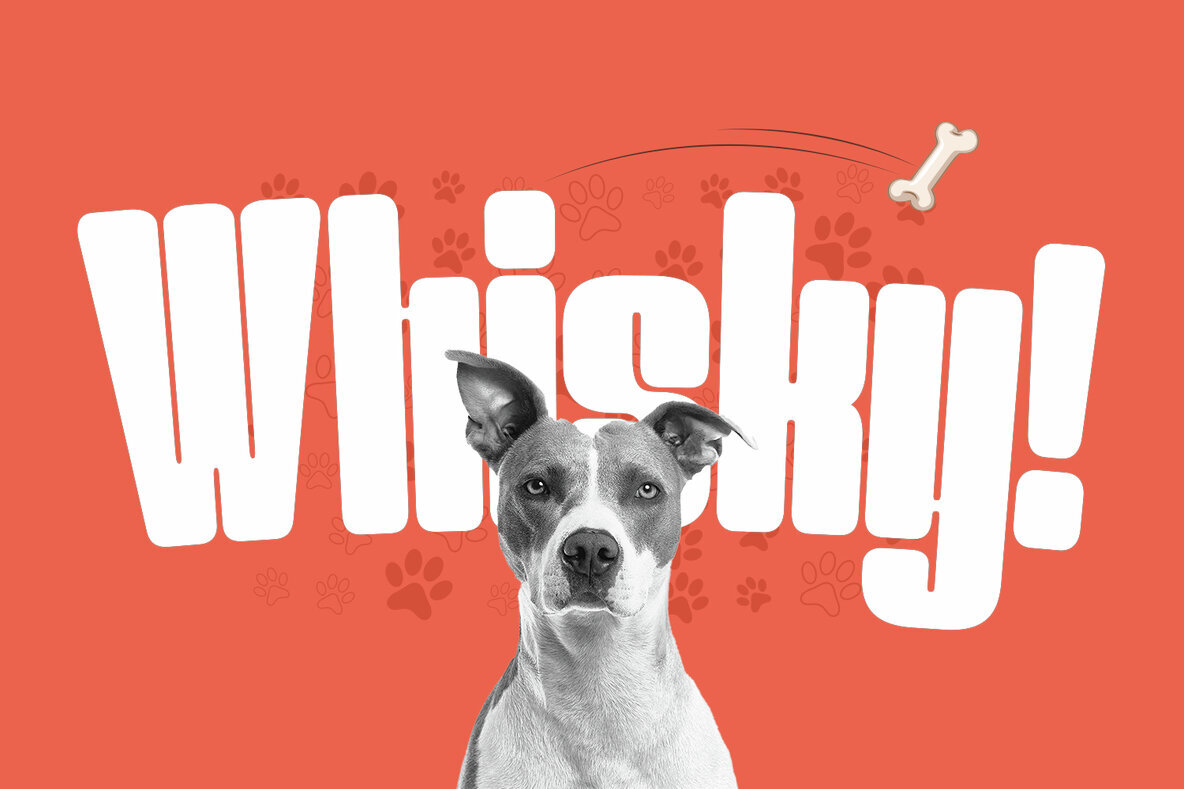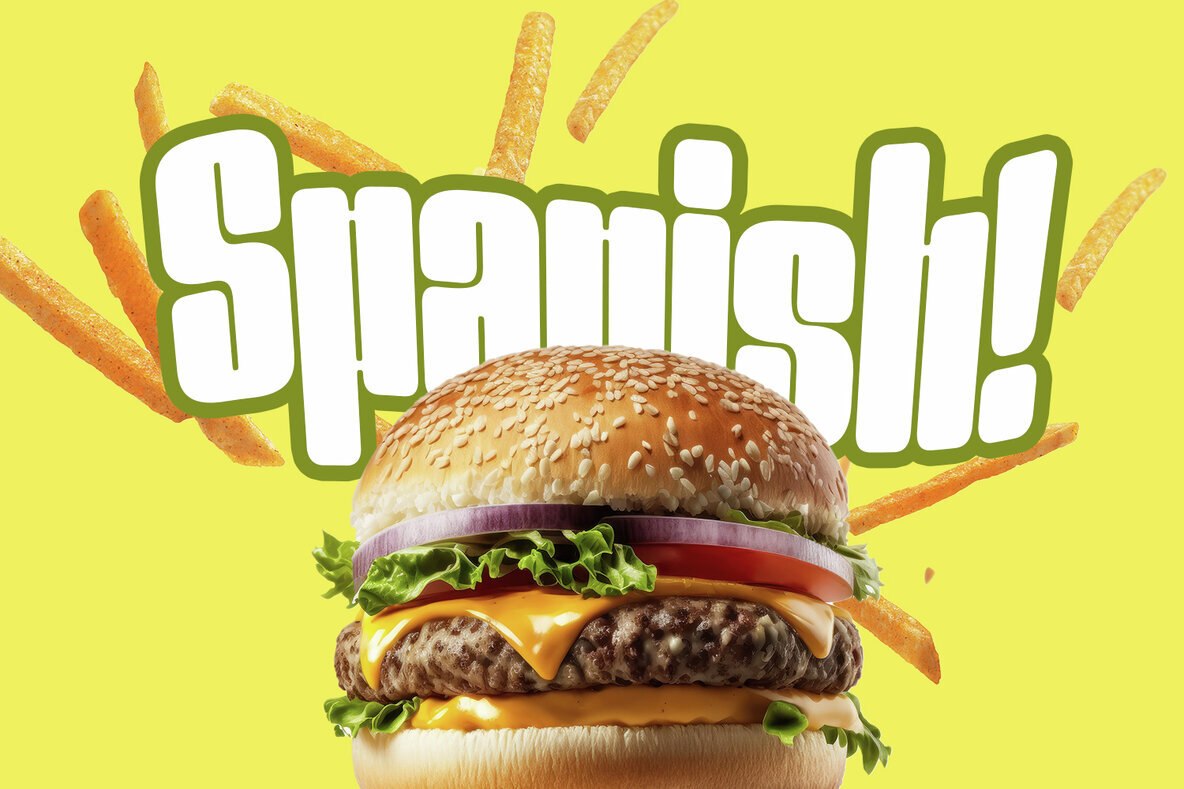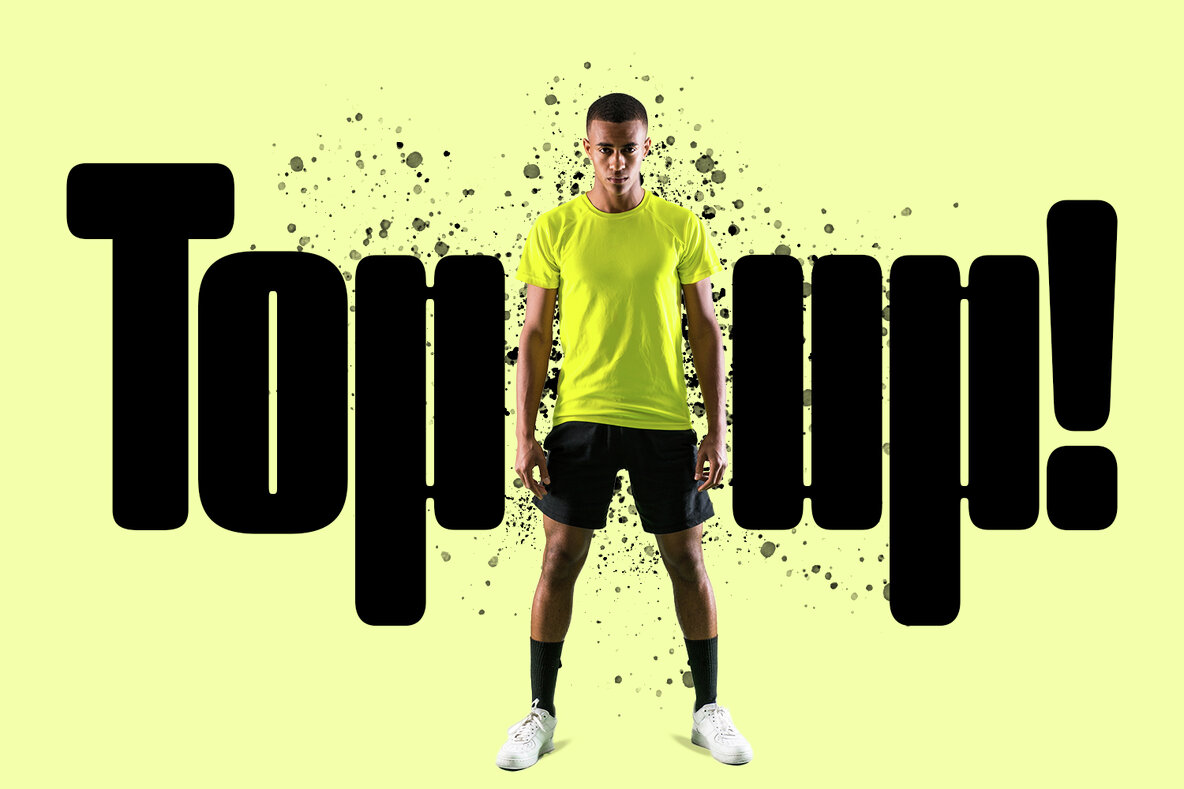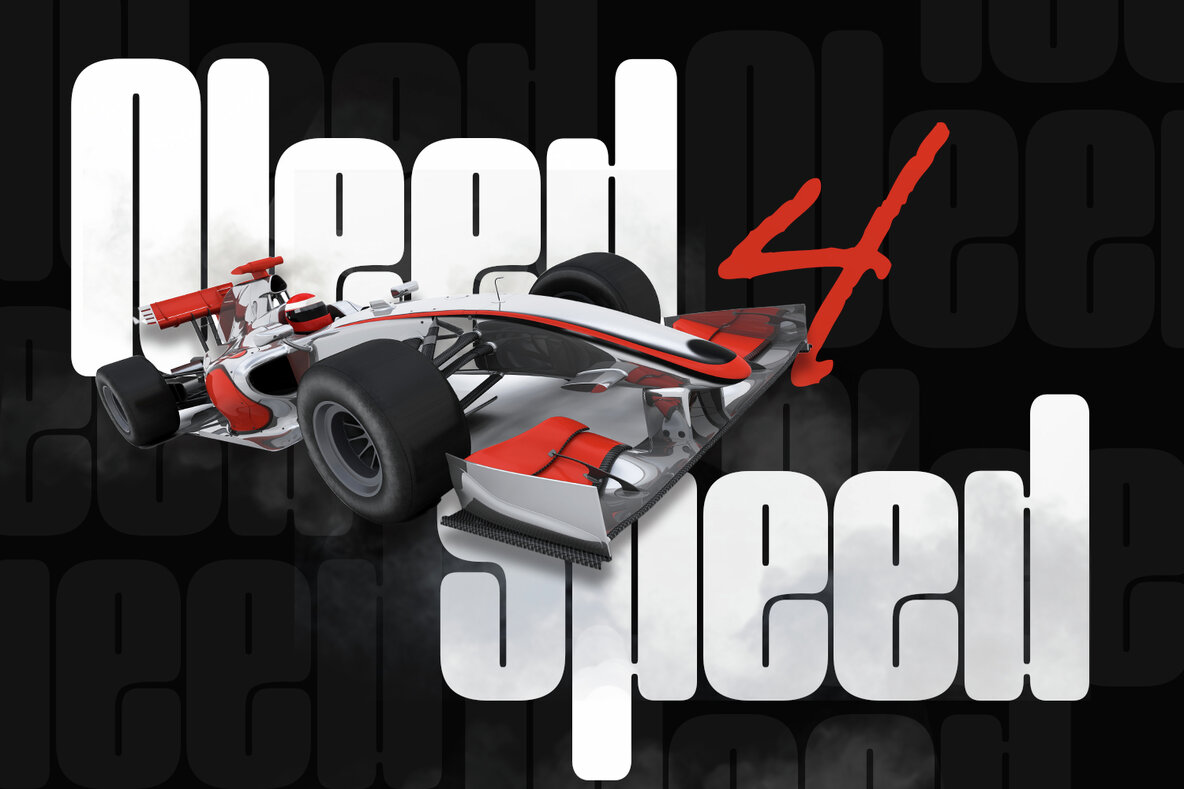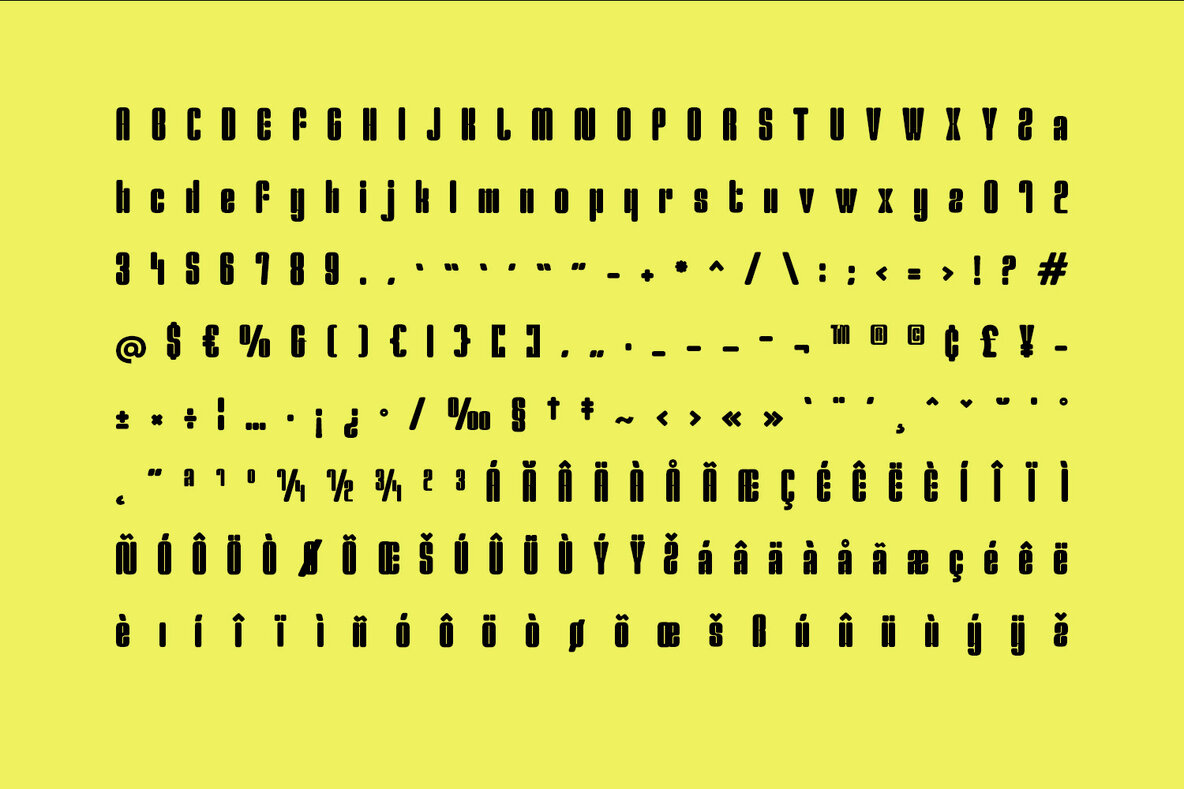
Werner Font
Werner Bold
Werner Display is a new-generation decorative typeface designed to captivate audiences and enhance brand appeal. Meticulously crafted with precision, Werner is ideal for various projects, including corporate tasks, branding, logos, titles, headlines, posters, and digital ads.Werner Display Typeface by FoxType Co
Designed for Versatility